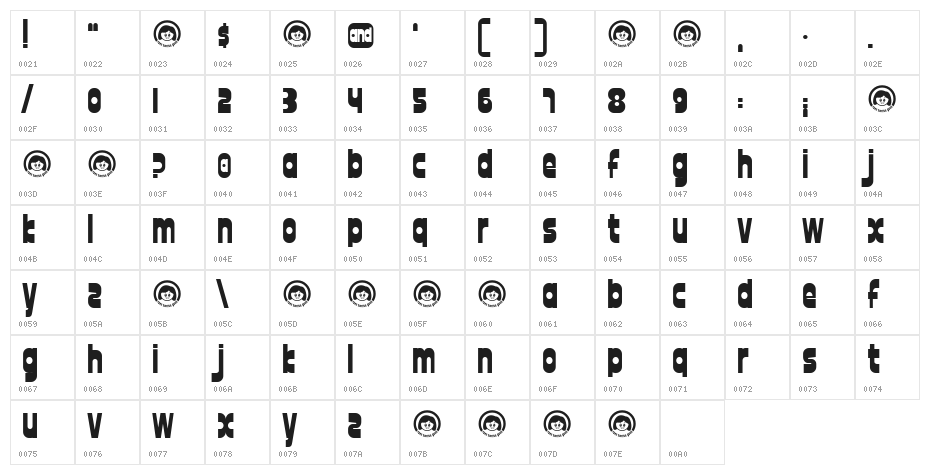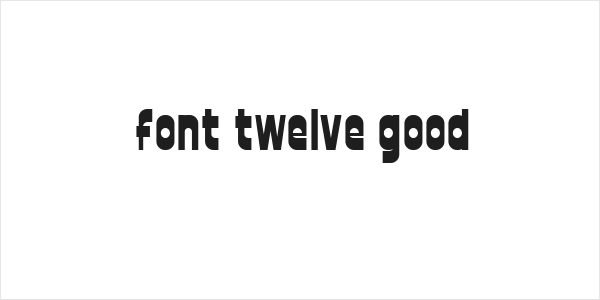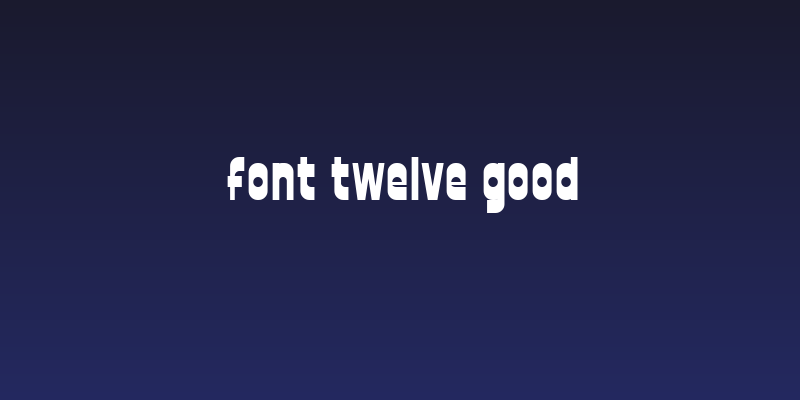
font twelve good Font
font twelve good Description
This font features a bold, geometric style with thick, uniform strokes that create a strong visual impact. The characters are rounded and blocky, giving them a modern and playful appearance. The uppercase and lowercase letters maintain a consistent height, contributing to a cohesive look. The numbers and special characters are designed with the same boldness, ensuring readability and uniformity across all elements. The font's design is highly legible, making it suitable for various applications where attention-grabbing text is desired.
Proposed ProjectsIdeal for headlines, posters, branding, and any project requiring a bold, modern aesthetic.